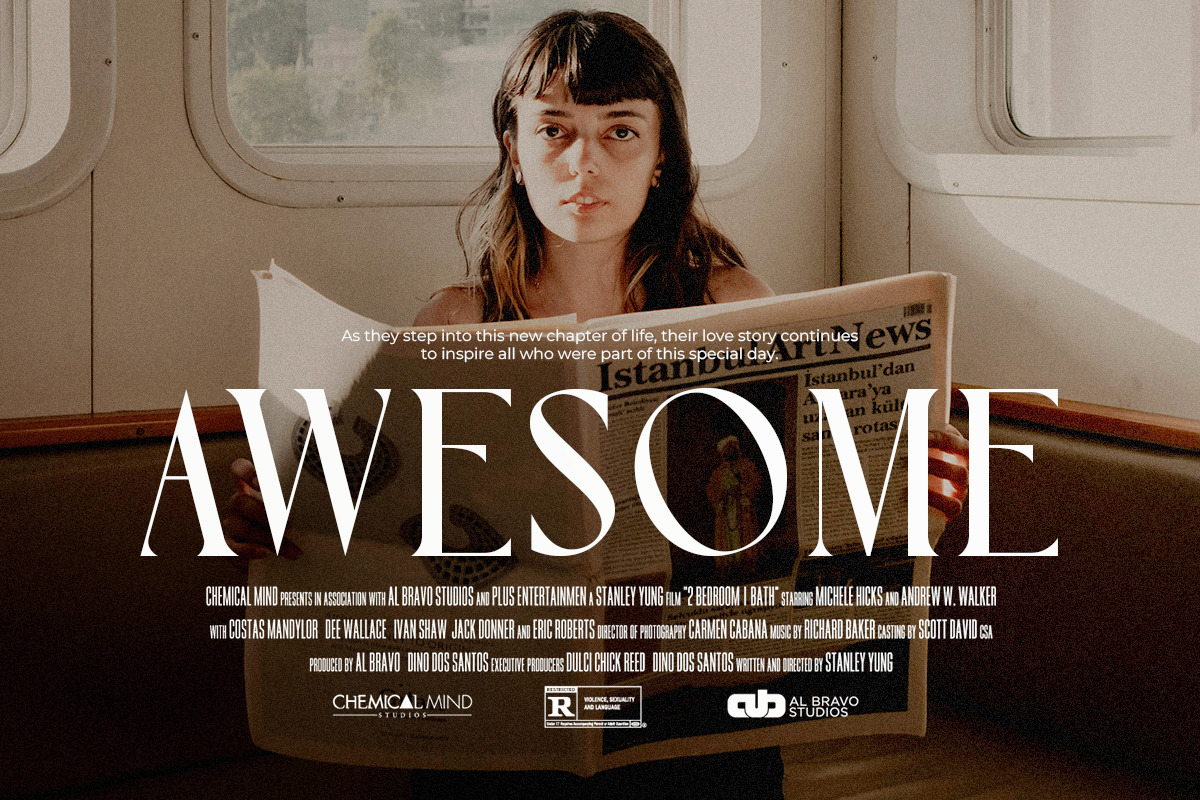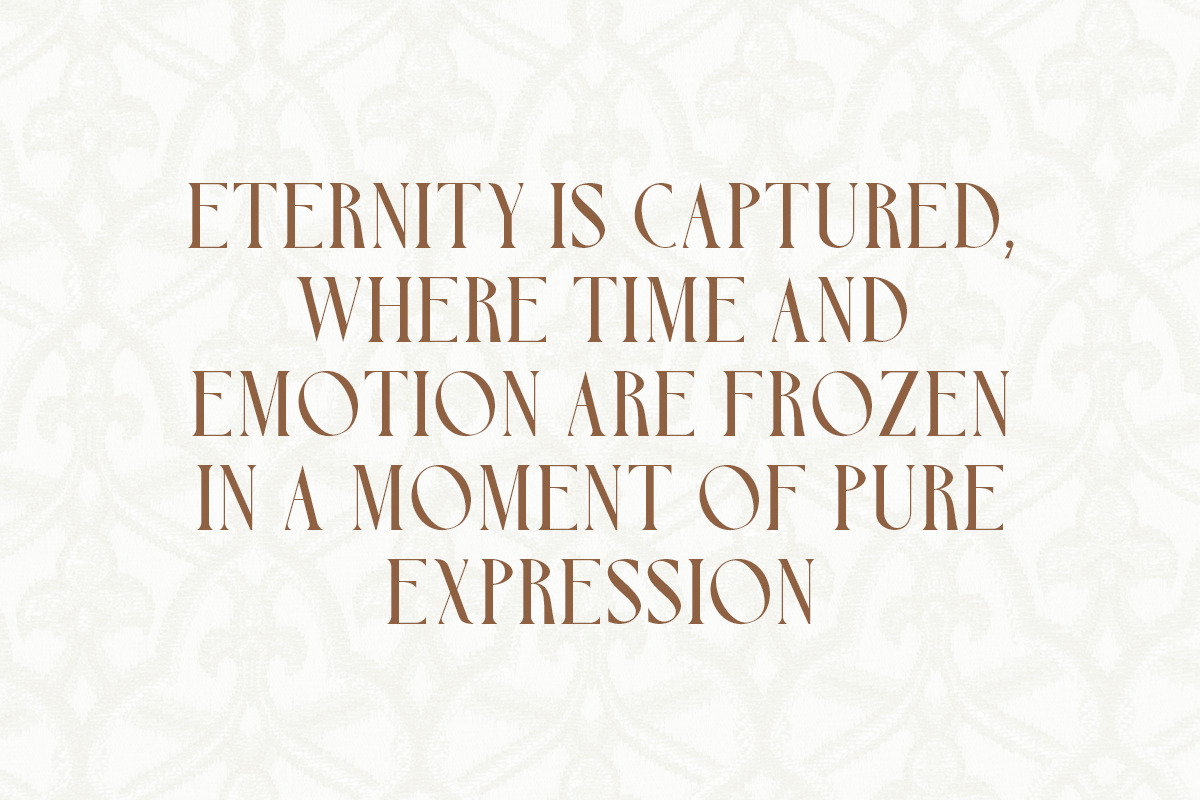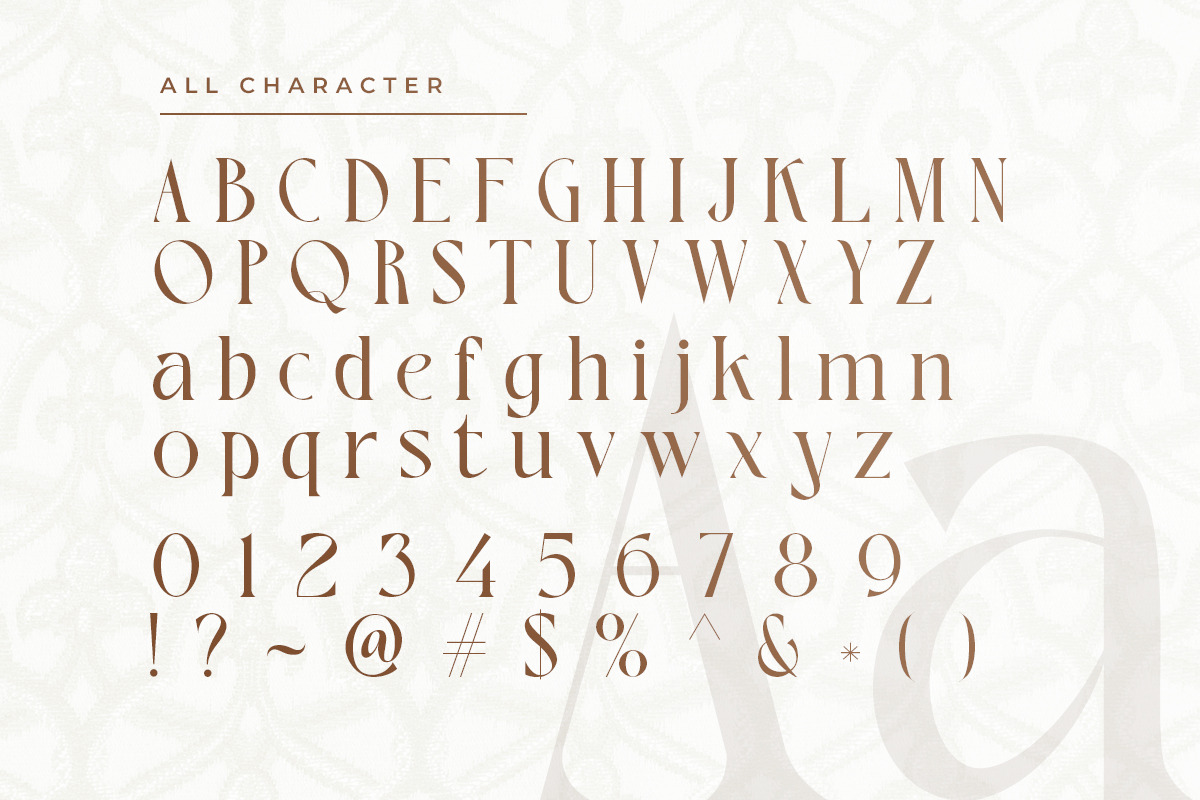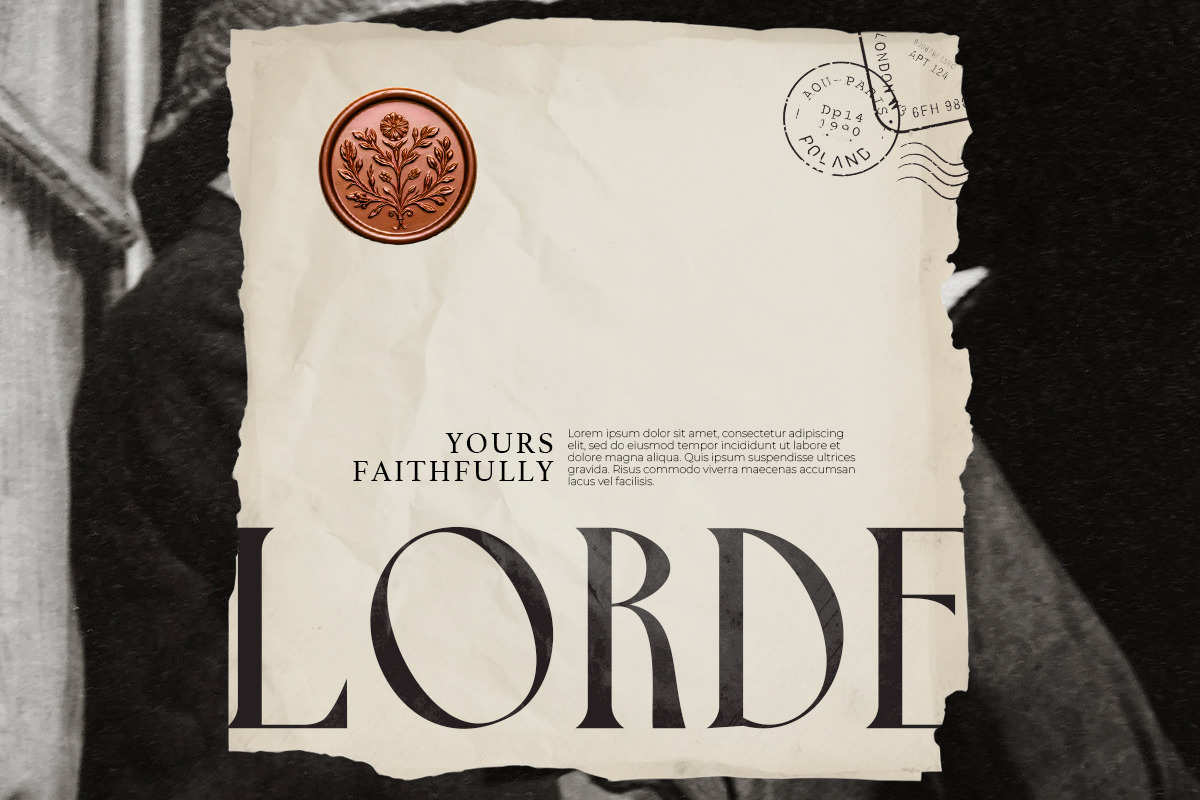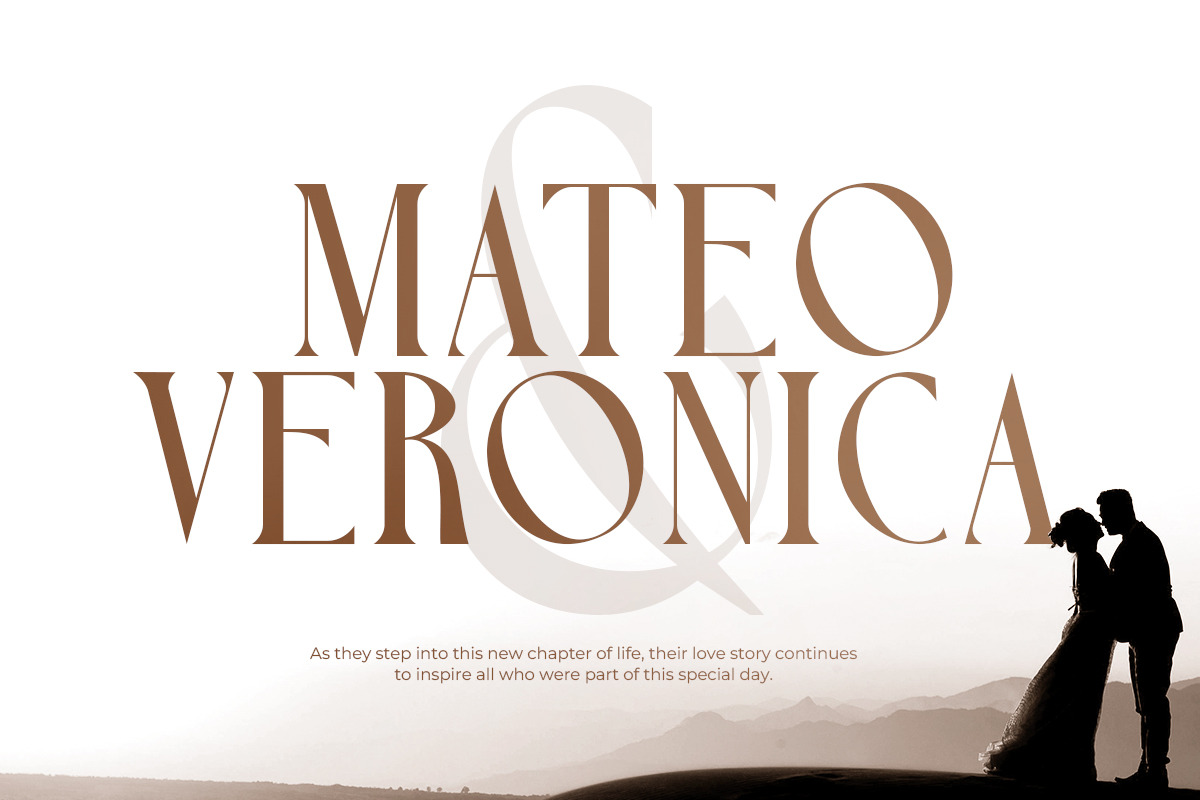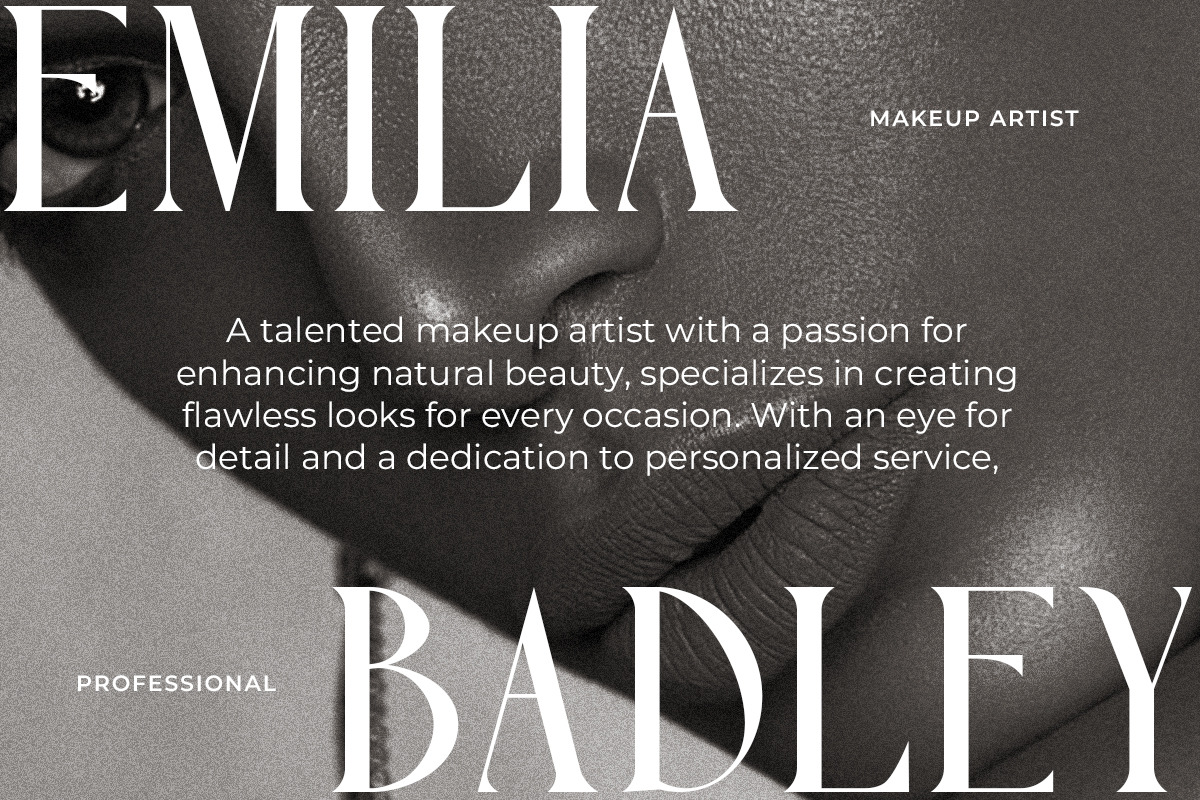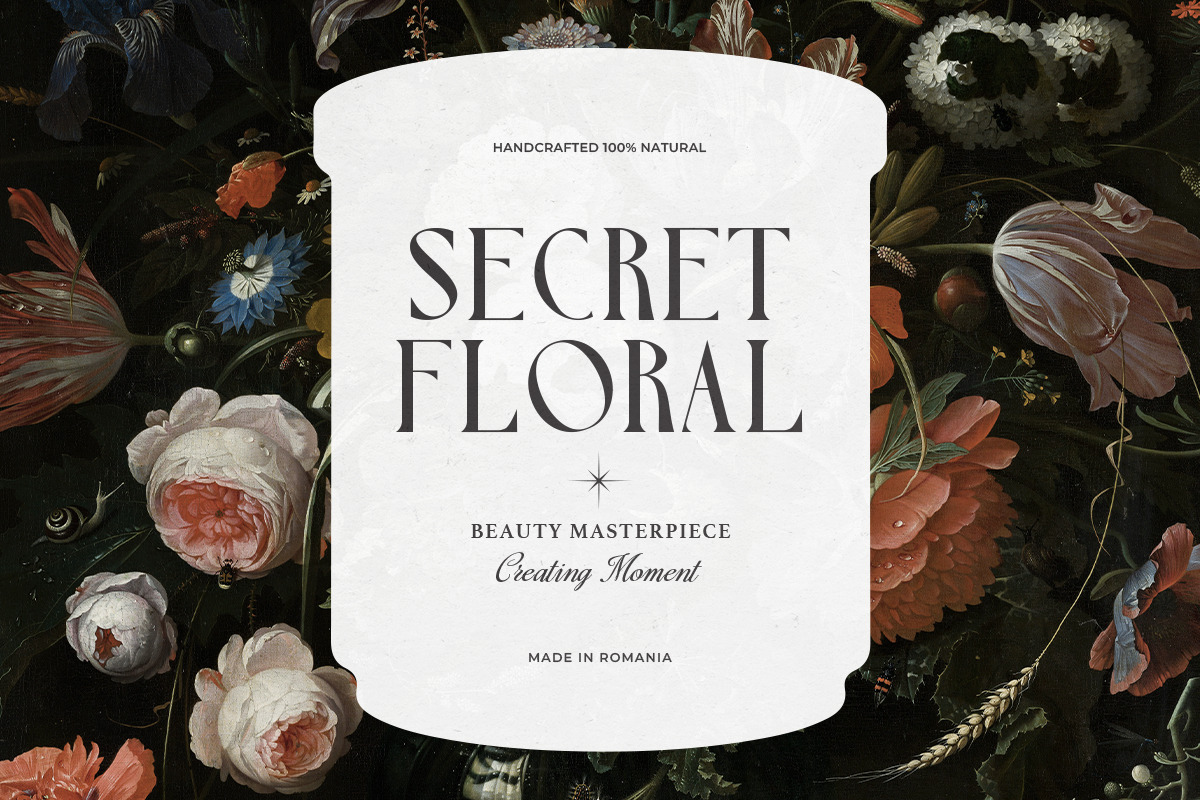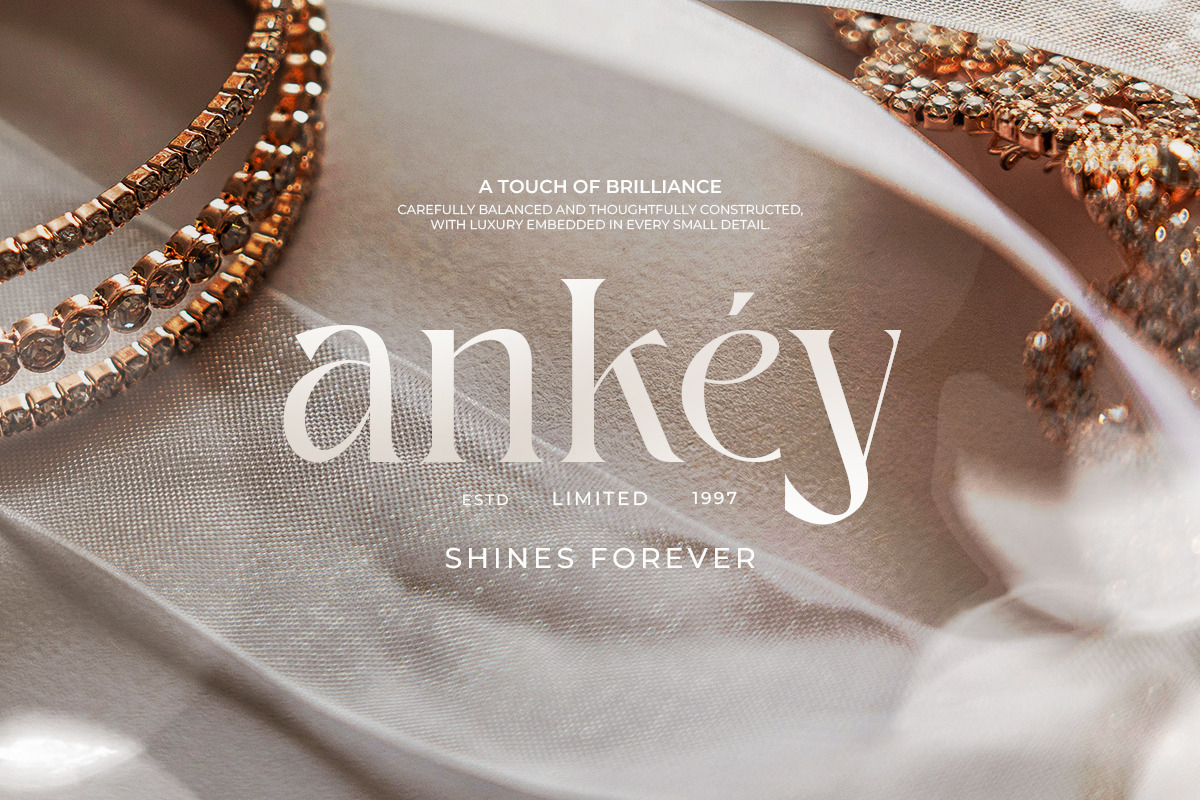
Robuca - Vintage Serif
Timeless typeface that elegantly blends vintage aesthetics with a fresh, modern touch. Designed to enhance your product branding, it exudes sophistication and charm, making it a perfect choice for creating a lasting impression. Whether used for packaging, logos, or promotional materials, Robuca brings a sense of style and authenticity to every project.